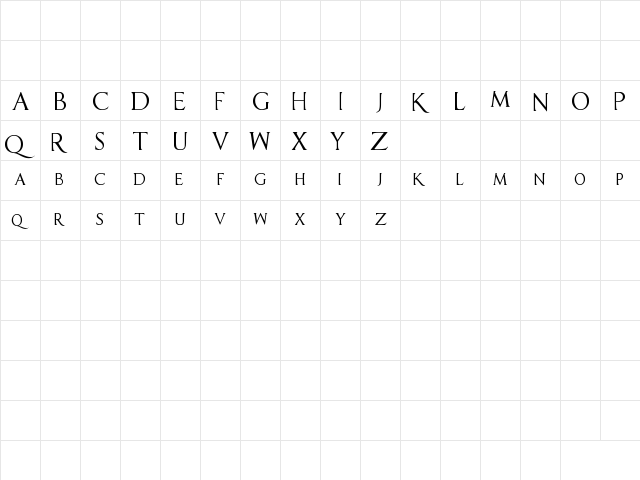
Sell Your Soul Regular Font Preview
Sell Your Soul Regular
Sell Your Soul Regular Font Details
Design Context for Sell Your Soul Typeface
Sell Your Soul takes a measured approach to typography — its balanced proportions and neutral character make it a reliable workhorse for both digital and print work.
Pro Tip: Use Sell Your Soul in both headline and body roles to test its range before committing to a single application.